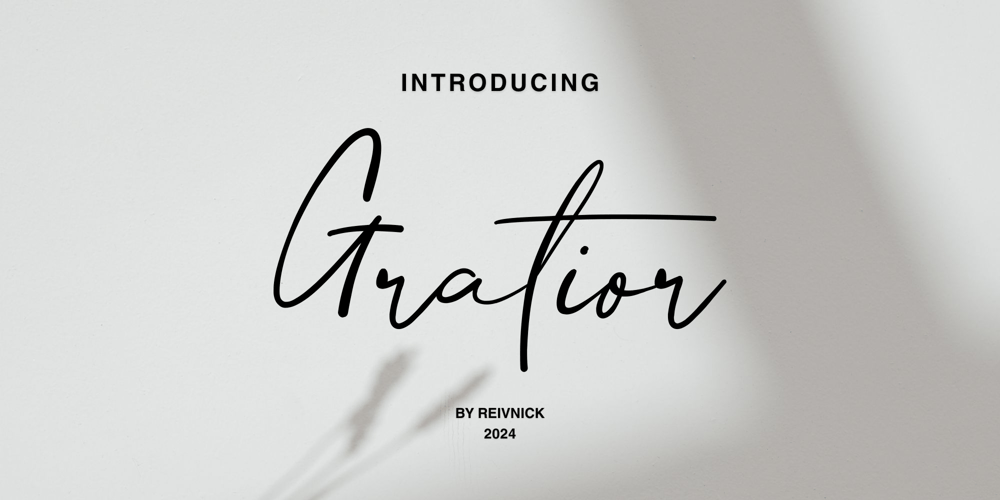
Gratior Font Family was designed by Benediktus Hosni Iryandito and published by ReivNick. Gratior contains 1 styles and family package options. Gratior is a stunning script font that embodies elegance and allure. Its flowing flourishes and intricate details draw attention, making it ideal for wedding invitations, branding, and signage. With its classic charm and delicate curves, Gratior infuses a sense of sophistication into any design endeavor.